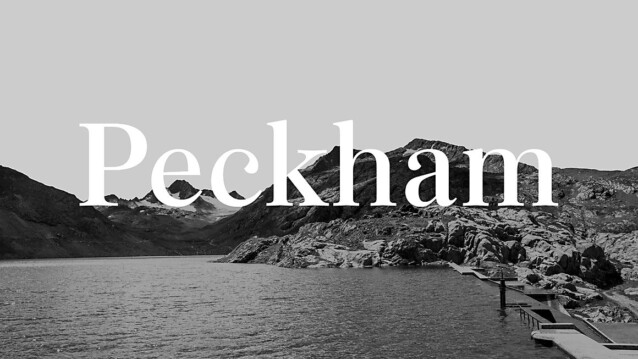
Peckham Font is a vintage style serif font crafted & designed by Apex Type Foundry. Peckham takes its roots in a surprising French Canon from Vincent Figgins specimen (1801 / 1815). It has the typical boldness of Figgins’display type but was adapted to the contemporary taste. While keeping the original contrasts and sharp verticality of Figgins’French Canon, Peckham is also nourished by early nineteenth century’s Scotch Roman typefaces and later revivals of the genre.